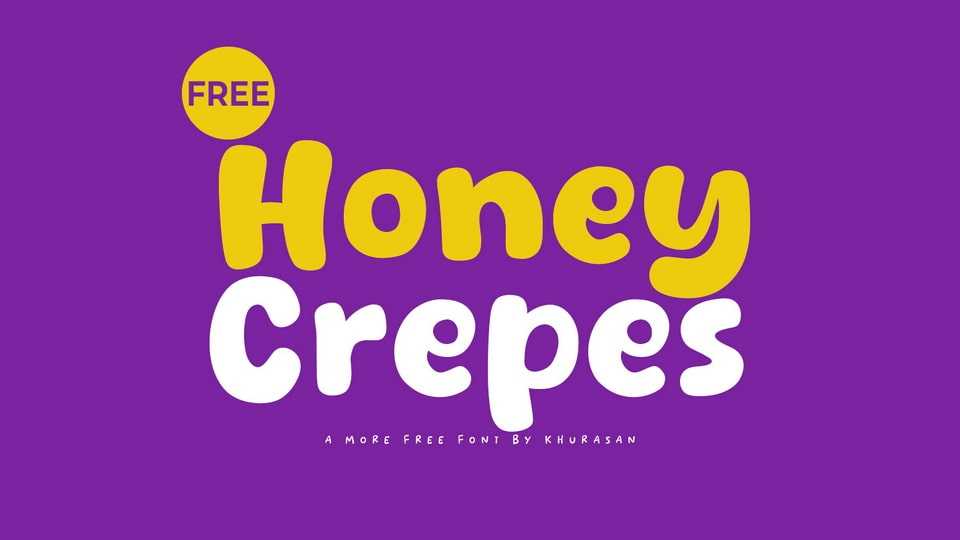
Download Honey Crepes font, a cute and playful hand-drawn typeface that captures the essence of childlike joy and creativity. The font features charmingly imperfect letterforms with rounded edges and whimsical shapes.